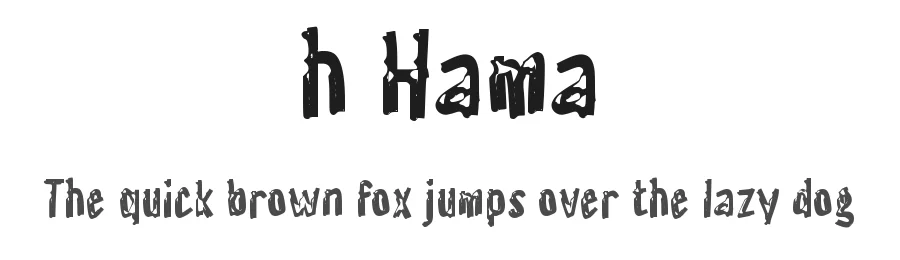
About Dead City Club Font
Dead City Club.
MMXXII
Dead City Club Font is a decorative font that shines as a display or heading face. Pair it with a clean sans-serif or serif font for body text β the contrast creates a clear hierarchy while the two styles stay balanced and easy to read.